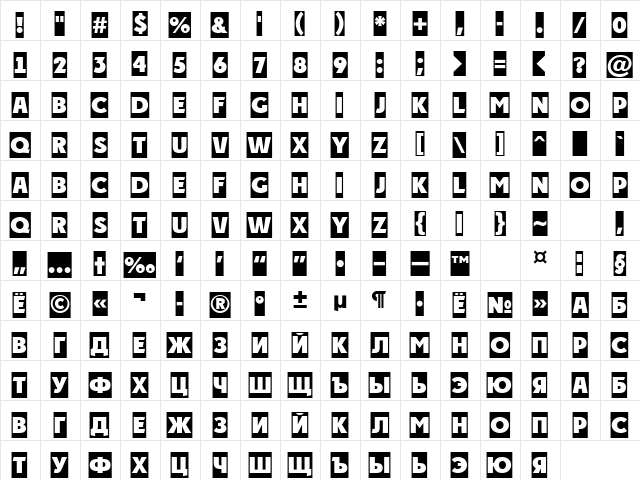
a_PlakatTitulCm Regular Font Preview
a_PlakatTitulCm Regular
a_PlakatTitulCm Regular Font Details
Design Context for a_PlakatTitulCm Typeface
a_PlakatTitulCm is a composed and adaptable typeface that performs quietly and consistently across a wide range of design contexts.